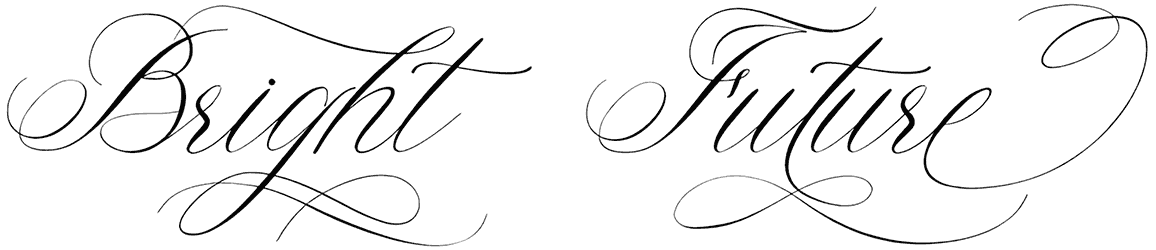
Bright Future Font
Bright Future is a script font full of elegance, where the letters are expertly connected. By using this handwritten font, you can add smoothness, originality, and credibility to your project and take it out of the ordinary with just one movement. This funeral font can turn any text into a masterpiece and looks great on wedding cards, Christmas greetings, and romantic movie titles.